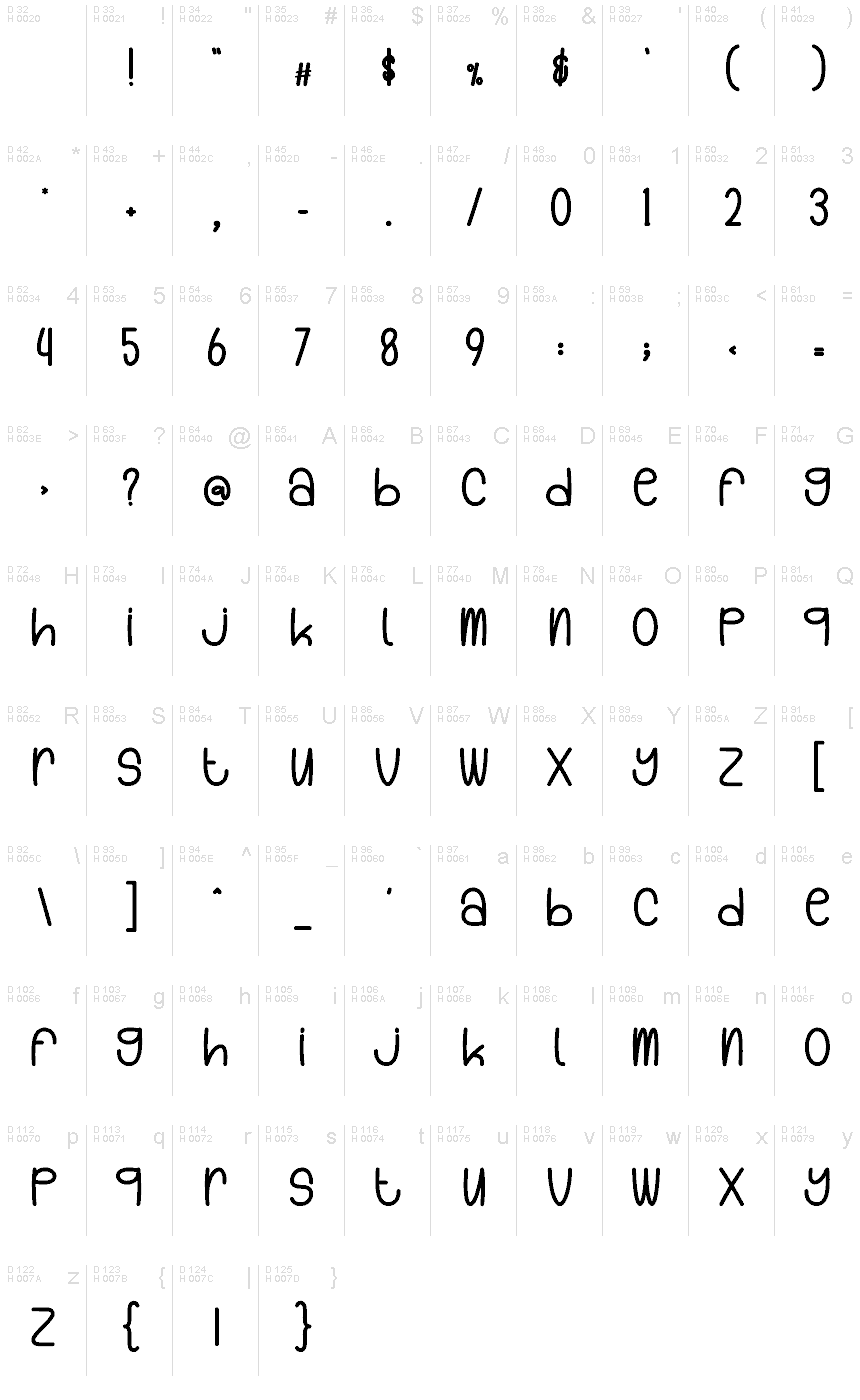
Achieve Dreams
Achieve Dreams font is a whimsical creation by Andi Moz that captures a quirky and friendly handwritten feel. Its organic and playful strokes evoke a sense of creativity and warmth, making it perfect for lighthearted and engaging designs. This free handwritten font stands out with its genuine, approachable demeanor.
Perfect for book covers, greeting cards, social media content, journals, event invitations, blog headers, product packaging, motivational posters, quote designs and personal project displays.